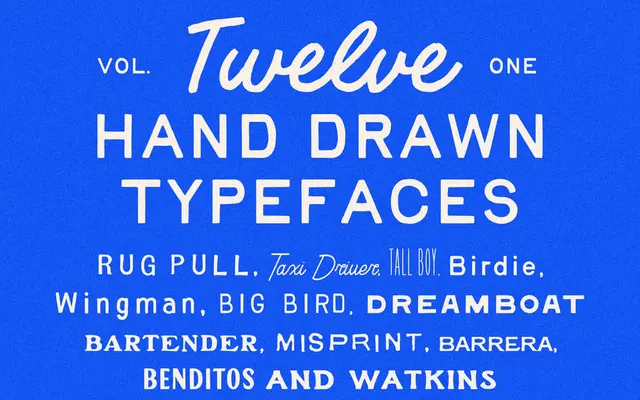
Type Volume One
A bundle of twelve display typefaces from Taylor Penton, sold together for commercial use across branding, packaging and web work.
Twelve named display fonts sold as a single commercial bundle at a flat price, covering a range of expressive styles suited to logos, packaging and client work. The licence is straightforward: one flat fee for individuals and teams under fifty employees, with no seat counts or web traffic caps, and includes OTF desktop files alongside WOFF and WOFF2 webfonts. Language support covers Western European scripts including Icelandic and Welsh, though coverage varies by individual font.
A bundled collection of twelve distinct display and decorative typefaces spanning multiple styles; no single category applies, so display is used as the broadest accurate descriptor.